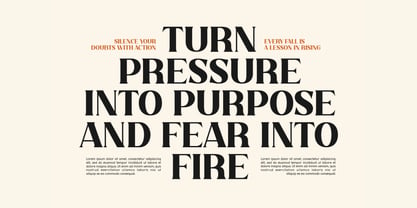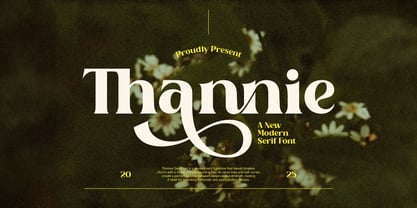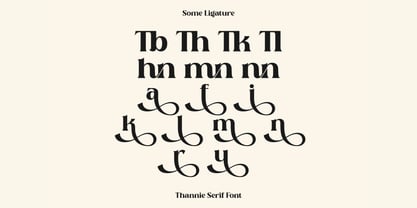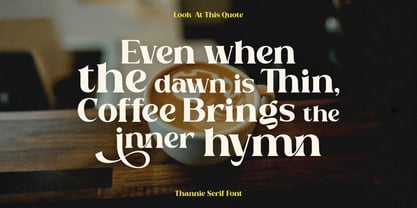
Thannie
by Omzen Type
The Thannie Font Family was designed by and published by Omzen Type. Thannie contains 1 styles. More about this family
A Modern serif font that blends timeless charm with a touch of contemporary flair. Its clean lines and soft curves create a perfect balance between elegance and strength, making it ideal for branding, editorials, and sophisticated designs. And especially for this font, we prepared any characters to help you create unlimited variations for your creative needs.